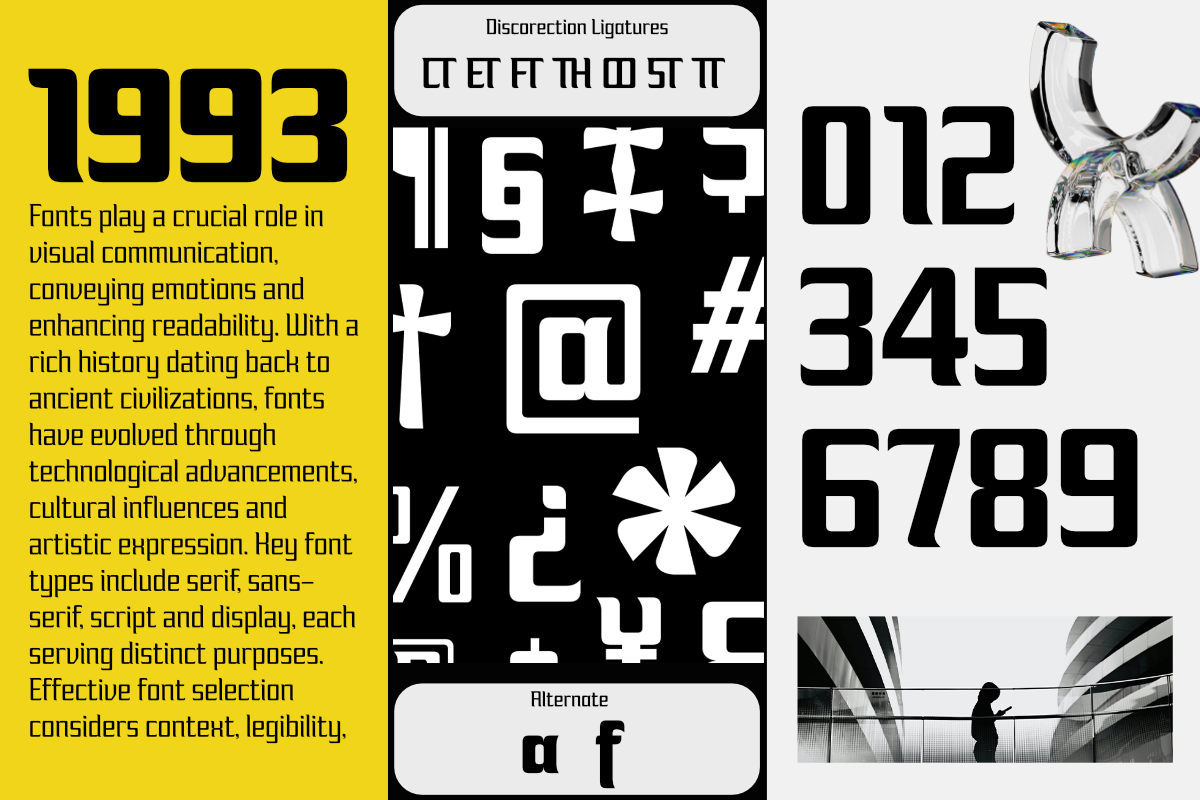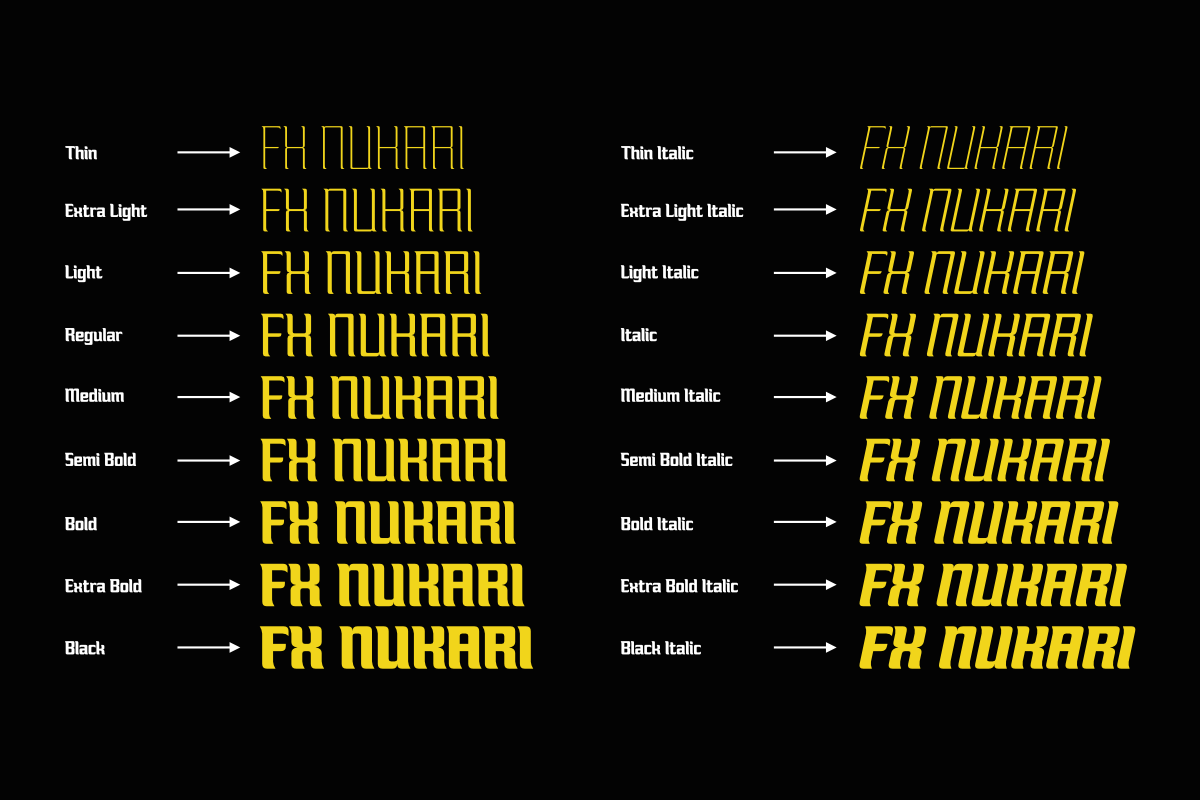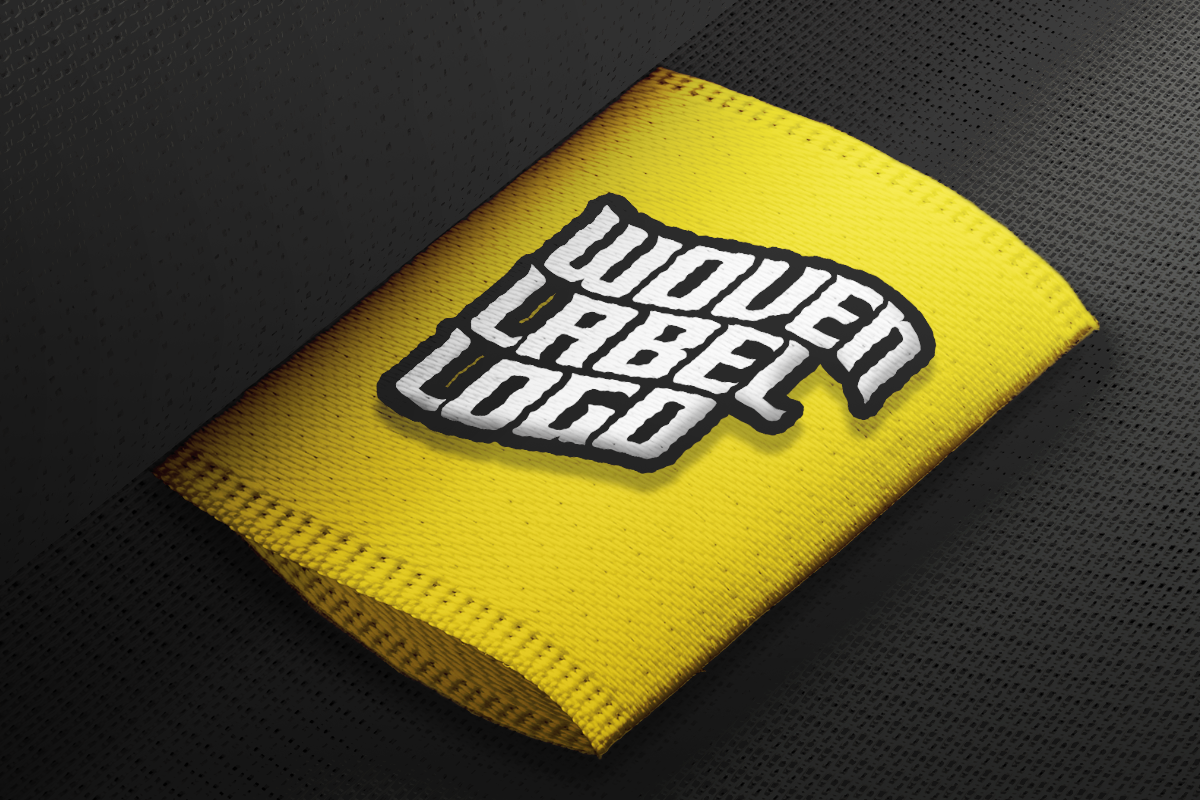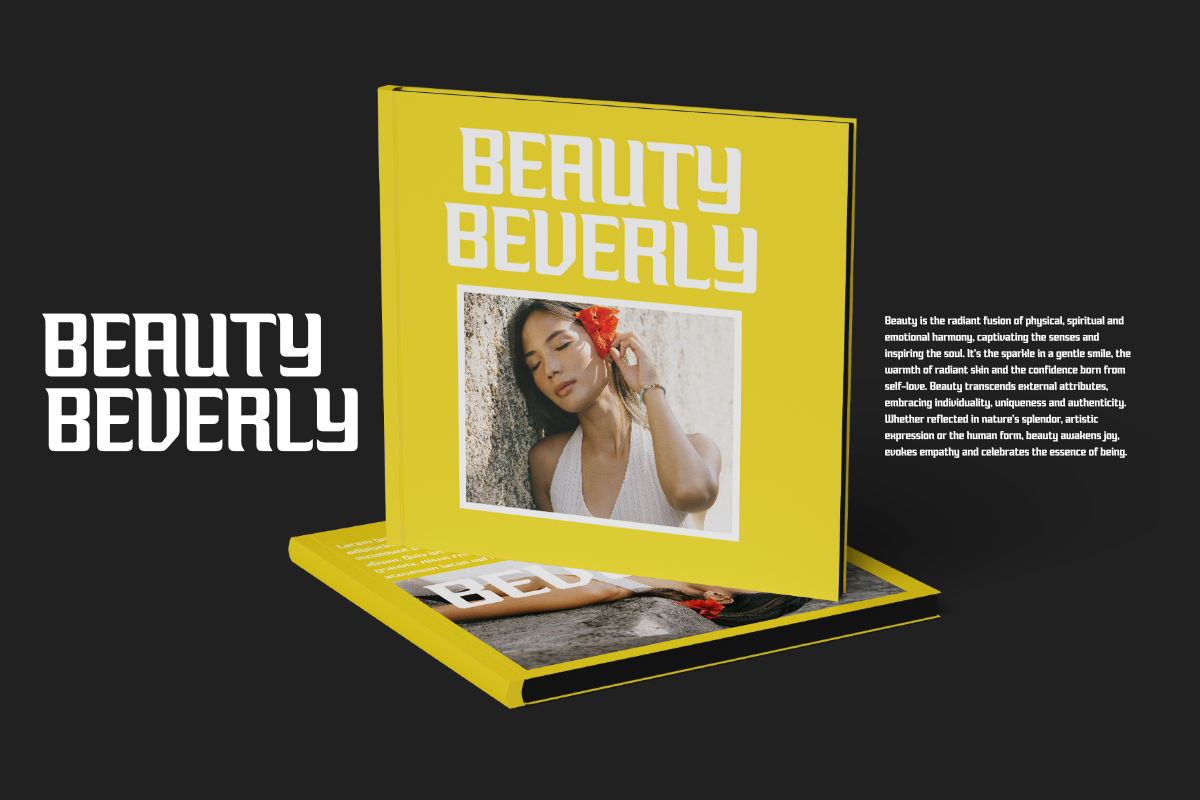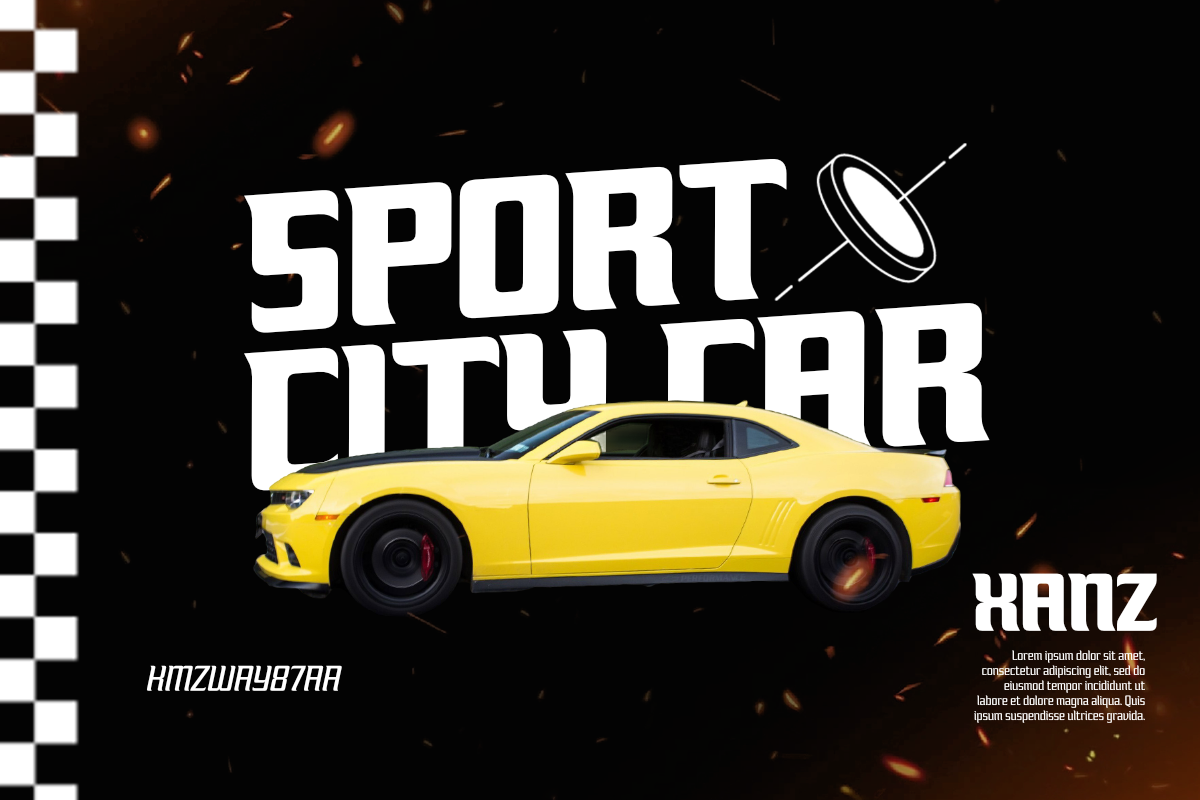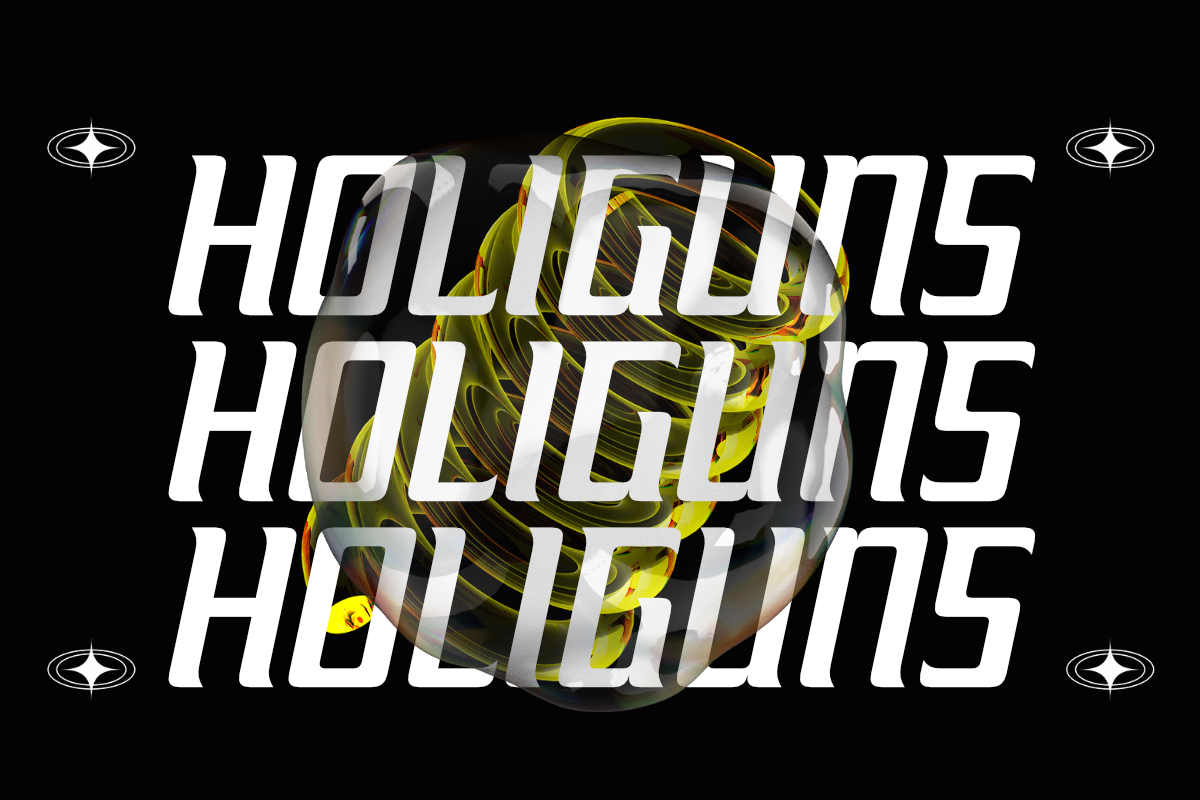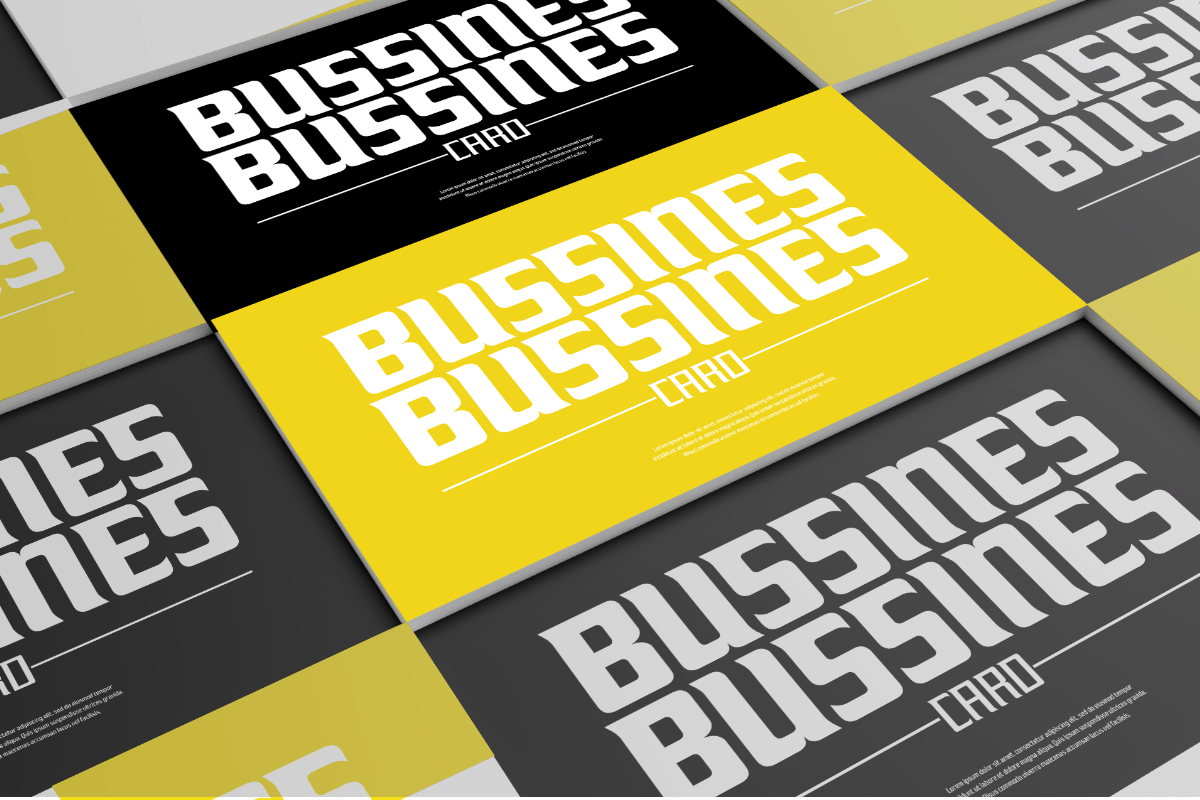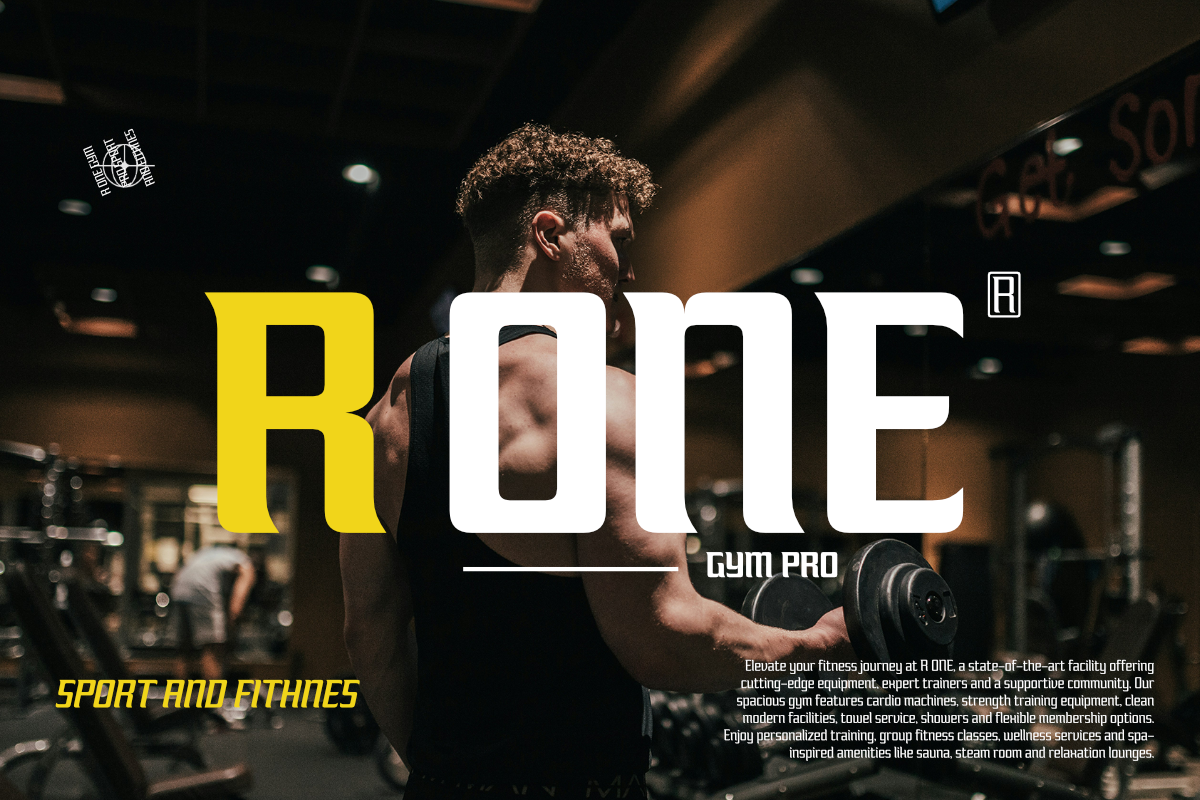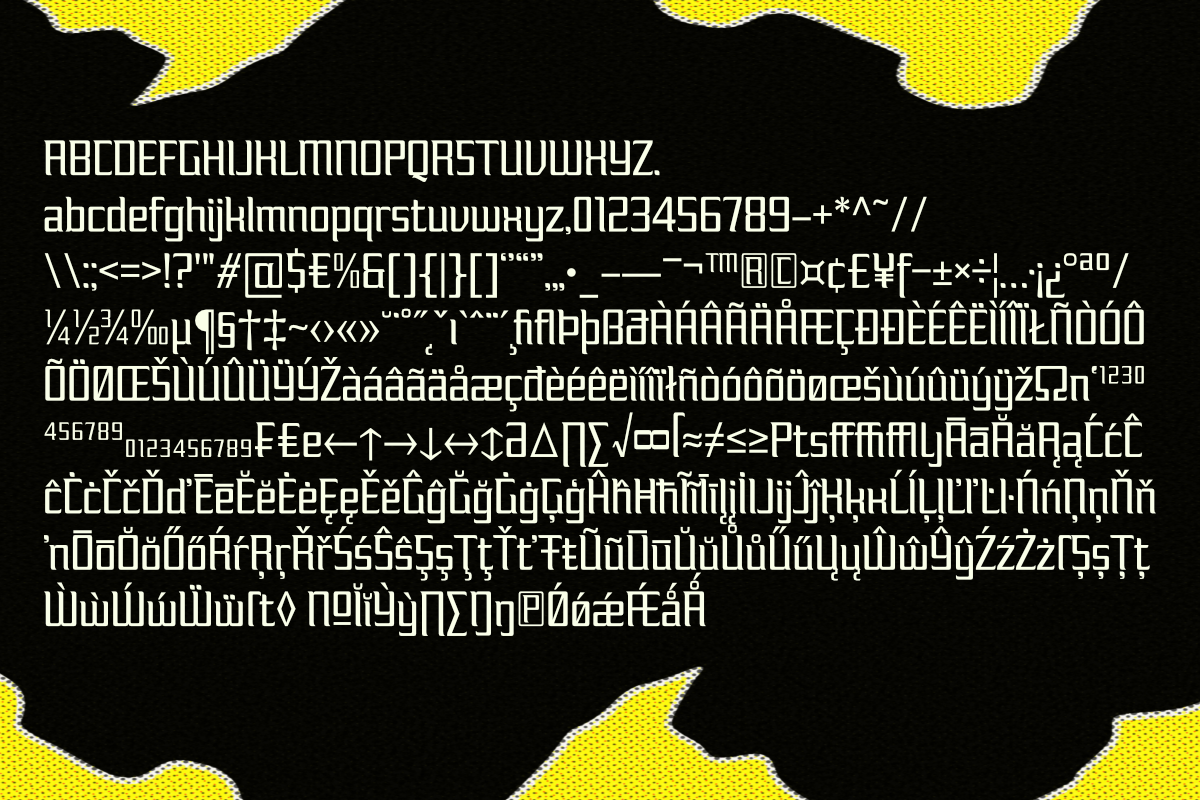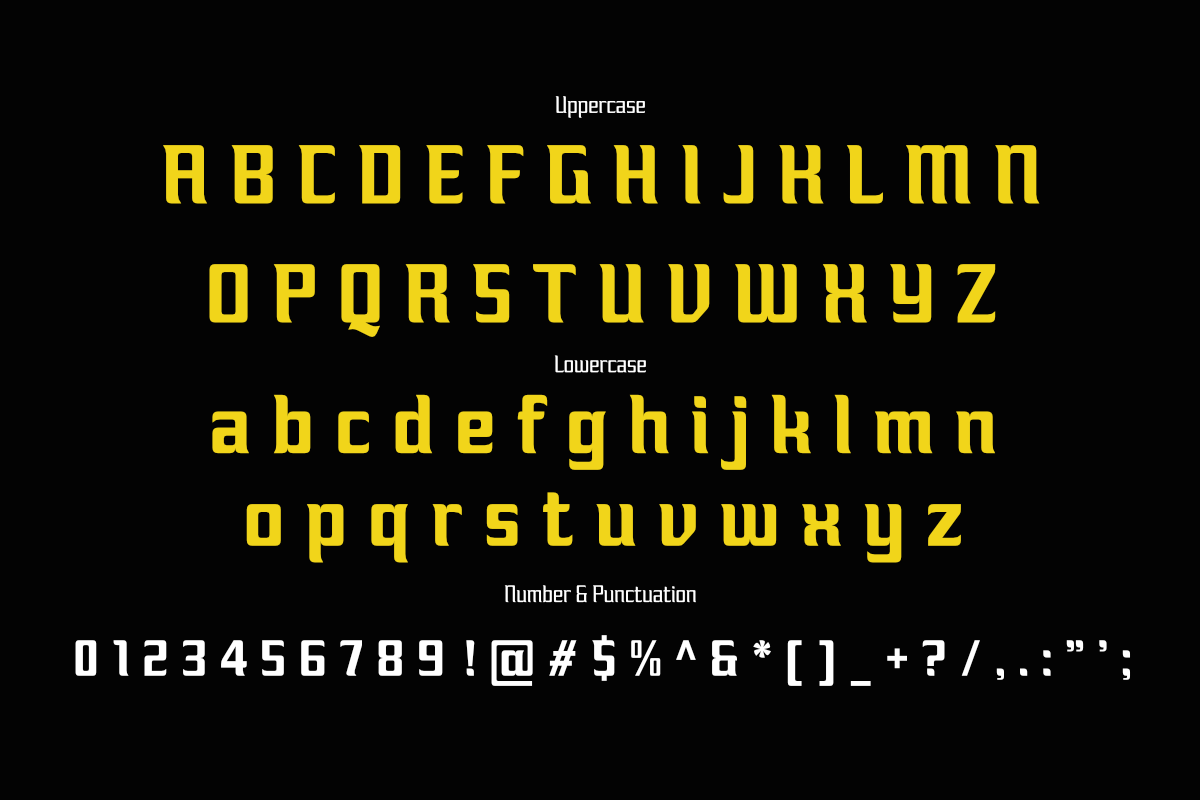
FX Nukari - Serif Display Family
Immerse in the extraordinary allure of FX Nukari, an innovative displaying font lineage. Featuring an extensive palette of 18 styles, this expressive typographic tool offers abundant versatility and diversity for your designs. FX Nukari is the perfect choice for myriad applications, from crafting crystal clear documents, creating captivating news headlines, designing remarkable logo signatures, to emboldening product branding and beyond. Welcome FX Nukari into your font repertoire and let its distinct brilliance transform and elevate your design narratives.